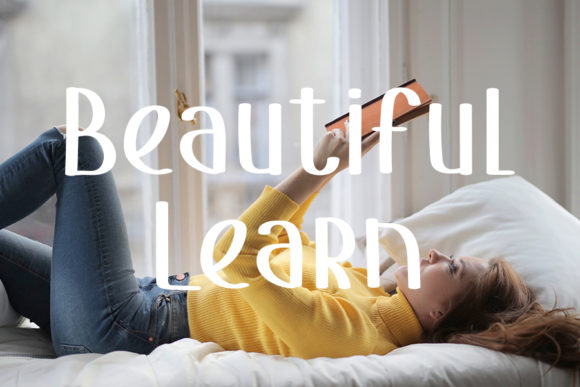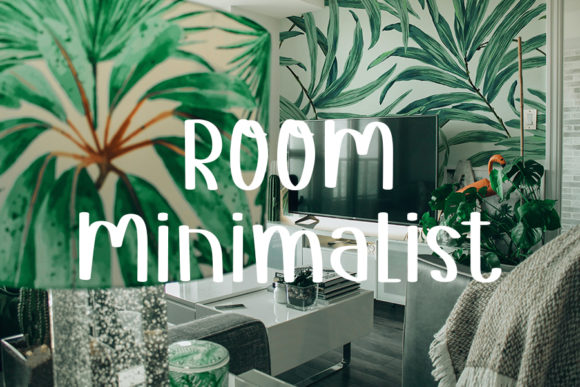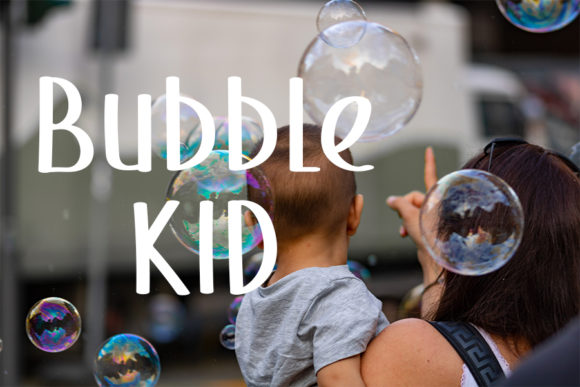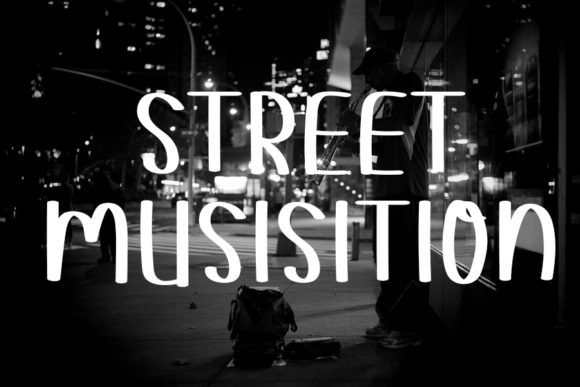
Discover the Elegance of Elizabeth Font: A Fresh and Modern Handwritten Style
Are you a designer or crafter looking for a font that embodies simplicity, elegance, and a touch of modernity? Look no further than the Elizabeth Font. This very thin and simple handwritten font is making waves in the design world with its fresh and modern style, perfect for creating lovely designs that stand out.
What is Elizabeth Font?
Elizabeth Font is a beautiful, handwritten font that is characterized by its delicate and thin lines. Its simplicity is what makes it so versatile and appealing to designers and crafters alike. Whether you’re working on a branding project, a website design, or a craft project, Elizabeth Font is sure to add a touch of elegance and sophistication.
Key Features of Elizabeth Font
- Thin and Simple: Elizabeth Font’s most distinctive feature is its thin and simple design. This makes it perfect for designs that require a subtle yet elegant touch.
- Handwritten Style: Despite its simplicity, Elizabeth Font retains a handwritten feel, making it relatable and personal.
- Fresh and Modern: The font’s clean lines and minimalist design give it a fresh and modern look that’s perfect for contemporary designs.
- Versatile: Elizabeth Font can be used across various design projects, from digital designs to print materials.
Inspiration and Design Ideas
The Elizabeth Font is a great inspiration for designers and crafters looking to create modern and elegant designs. Here are a few ideas to get you started:
- Branding and Logos: Use Elizabeth Font to create simple yet sophisticated logos and branding materials that exude elegance.
- Website Design: Add a touch of modernity to your website design with Elizabeth Font, perfect for headings, titles, and descriptions.
- Crafting and Scrapbooking: Elizabeth Font can add a personal touch to your craft projects, such as scrapbooking, journaling, and card making.
- Social Media Graphics: Create eye-catching social media graphics with Elizabeth Font that are sure to grab attention.
Tips for Using Elizabeth Font
To get the most out of Elizabeth Font, here are a few tips to keep in mind:
- Pair with Bold Fonts: Combine Elizabeth Font with bold fonts for a striking contrast that adds visual interest.
- Experiment with Colors: Elizabeth Font looks great in a variety of colors, so don’t be afraid to experiment and find the perfect hue for your design.
- Keep it Simple: Elizabeth Font’s simplicity is its strength, so avoid over-accessorizing your design and let the font speak for itself.
Elizabeth Font is a beautiful and versatile handwritten font that’s perfect for designers and crafters looking to add a touch of elegance and modernity to their designs. With its thin and simple design, fresh and modern style, and versatility across various design projects, Elizabeth Font is sure to inspire you to create lovely designs that stand out. So why not give it a try and see how Elizabeth Font can elevate your designs to the next level?
Whether you’re a seasoned designer or a crafter looking for a new font to add to your collection, Elizabeth Font is definitely worth checking out. Its unique blend of simplicity, elegance, and modernity makes it a great addition to any design project. So go ahead, get inspired, and create something beautiful with Elizabeth Font!